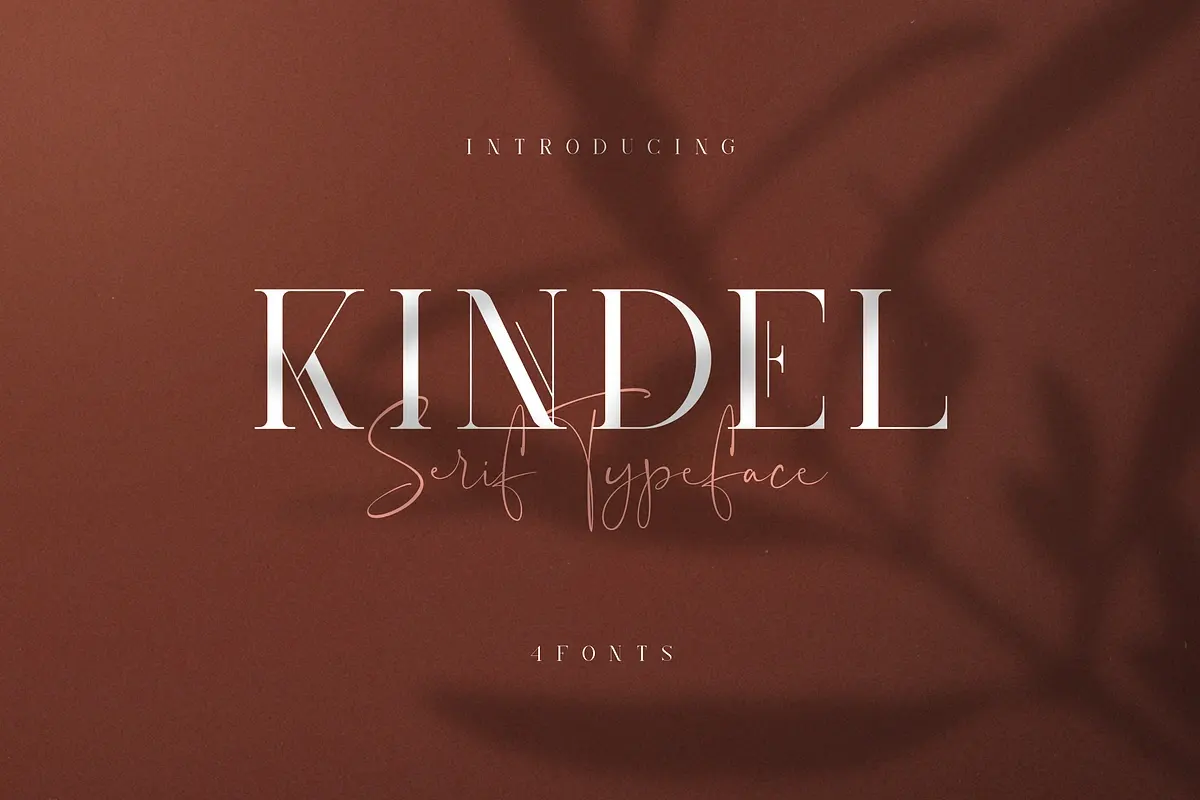
Kindel – Serif Typeface | 4 Styles Free Download is a refined and versatile serif font family that blends timeless elegance with modern sophistication. Featuring four distinct styles—Regular, Italic, Bold, and Bold Italic—this typeface is perfect for editorial layouts, branding, fashion lookbooks, packaging, and minimalist web design. Its crisp serifs and smooth curves make it both readable and stylish.
Whether you're aiming for a high-end, luxurious vibe or a clean and structured aesthetic, Kindel – Serif Typeface | 4 Styles Free Download offers the flexibility to shape your message with clarity and class. The variation in styles allows for dynamic typography pairings, ideal for headers, subheadings, and body text that all work harmoniously together.